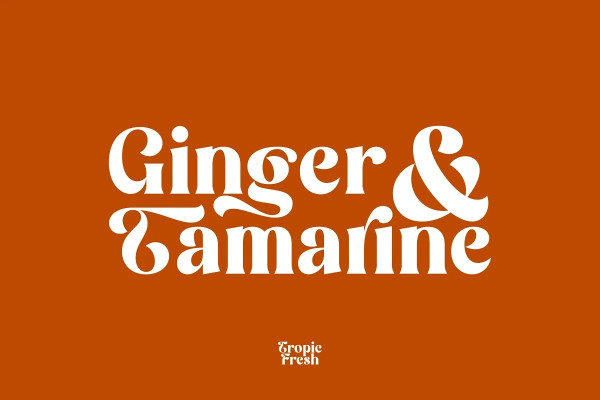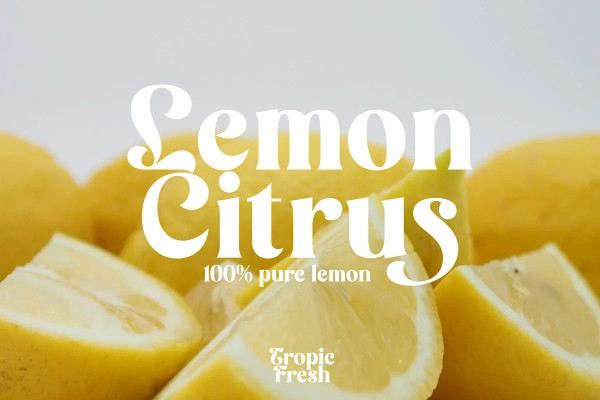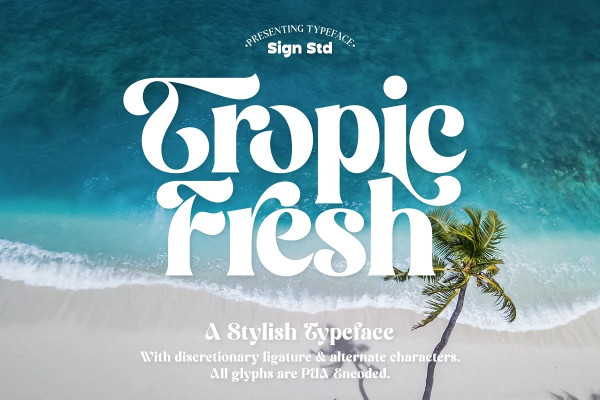
Tropic Fresh Font
Tropic Fresh Font is a serif font that adapts to today’s design styles. Equipped with alternative characters and also ligature. High detail in every part of the body. Uppercase and lowercase have the ideal height so this font is still good for writing formal text. Tropic Fresh is a versatile font to support a wide variety of today’s designs. All PUA Encoded characters, so they are easily accessible.